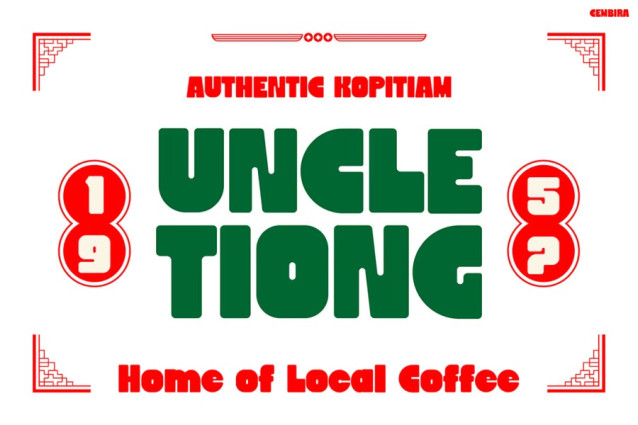
Gembira Font
Gembira Font beautifully blends tradition with modern design, creating a look that feels both classic and fresh. Its thick, rounded strokes instantly bring to mind the charm of vintage coffee shop signage and street market culture. Moreover, every curve feels handcrafted, giving your text a friendly, organic flow. This font doesn’t just stand out—it speaks boldly, confidently, and with joy. Whether you use it for café menus, posters, or social media visuals, GEMBIRA easily transforms simple layouts into eye-catching stories full of warmth.
In addition, GEMBIRA’s aesthetic comes from its harmony between solid geometry and soft curves. The strong shapes grab attention at first glance, while the playful rhythm of its letters keeps it approachable and fun. Because of this balance, it delivers a powerful yet welcoming impression, making every word feel expressive and full of life.
Who Will Love GEMBIRA
Instagram Font GEMBIRA is ideal for creators who love combining culture and creativity. It works wonderfully for coffee brands, ethnic restaurants, street food businesses, and even creative studios seeking a nostalgic touch. Furthermore, it’s excellent for packaging, café branding, advertising materials, and social media content that need a warm, authentic tone.
Additionally, GEMBIRA suits lifestyle brands aiming to express confidence and originality. Its bold personality helps messages stand out, while its smooth readability keeps designs clean and modern. Whether you’re designing a local restaurant menu, product label, or trendy Instagram post, this font brings unity, strength, and cultural flair.
Why You’ll Love It
Ultimately, Instagram Font GEMBIRA combines strength and soul in every curve. Its bold forms make your words pop, yet its soft edges keep them charming and friendly. Furthermore, it invites designers to celebrate heritage while staying stylish and modern. Add GEMBIRA to your collection today and let every project speak with warmth, confidence, and joy.